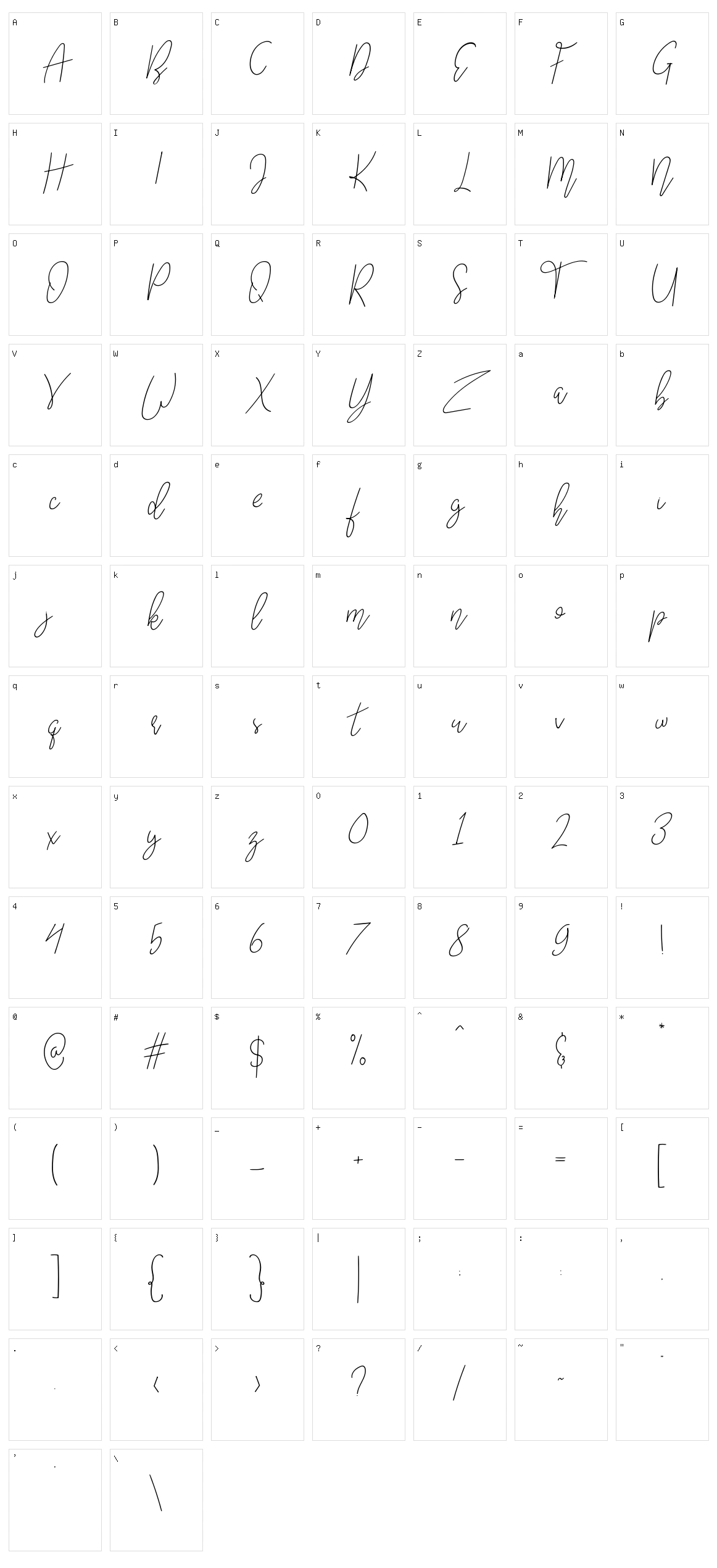
The free font Worst Letters is carefully designed by FallenGraphic Studio, showcasing a thoughtful balance of creativity and usability and falls under the Script font style. When you download the ZIP file, it contains only 46.32 KB of font files, making it lightweight and quick to download. Please review the license details below to understand permitted usage and distribution rights. If license information is not available, we recommend using this font for personal projects only or contacting the author directly for commercial usage permissions.